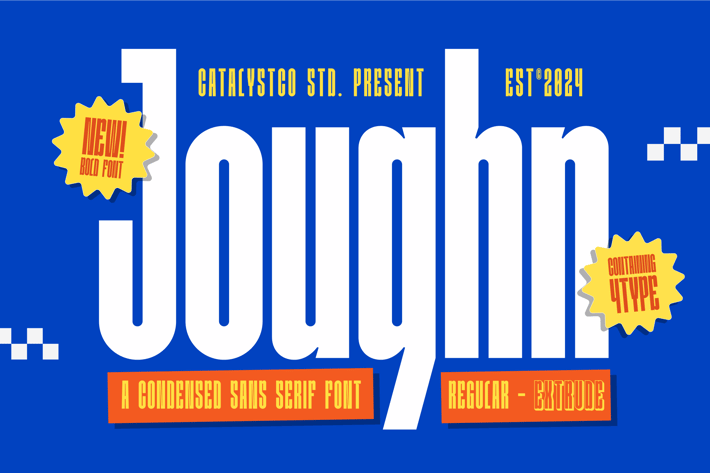
Joughn Condensed Sans Serif Font
Joughn Condensed Sans Serif Font typeface excellent used for the manufacture quote text, logotype, header magazine, and many more.
Main Features
Ligatures & Alternate
Numeral & Punctuations
* Regular and Extrude Style